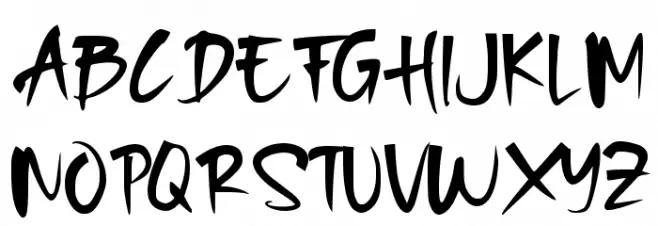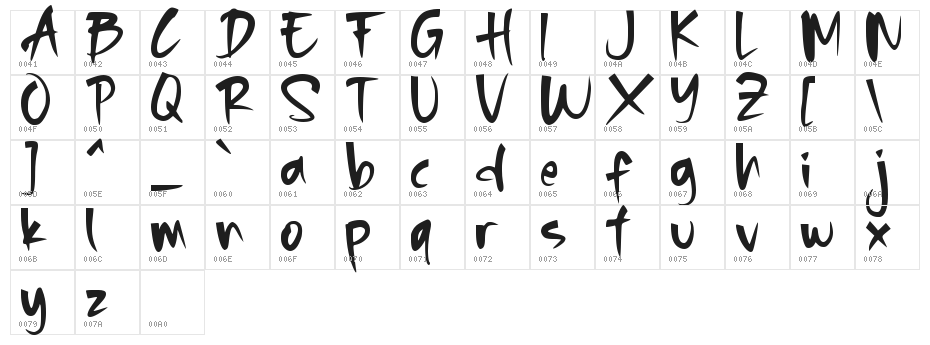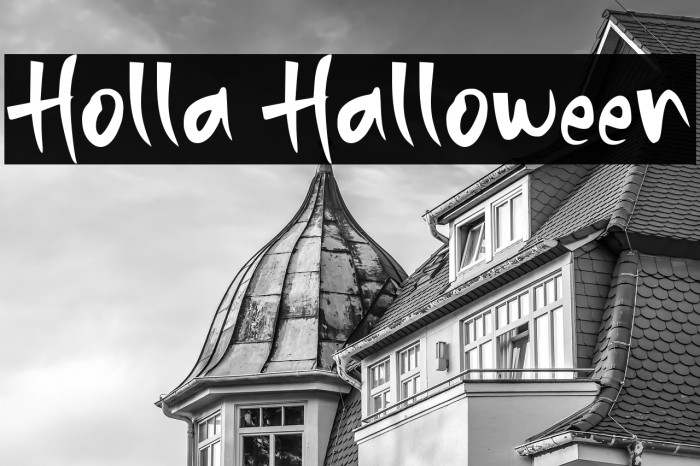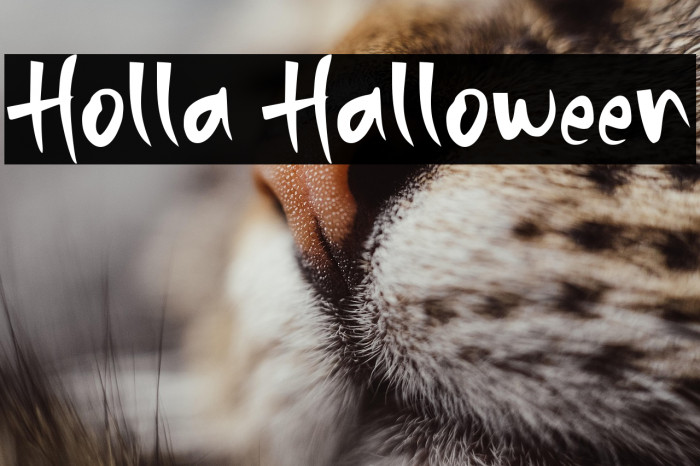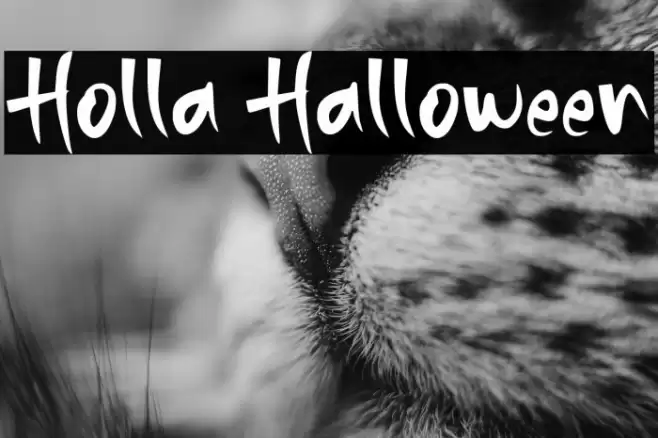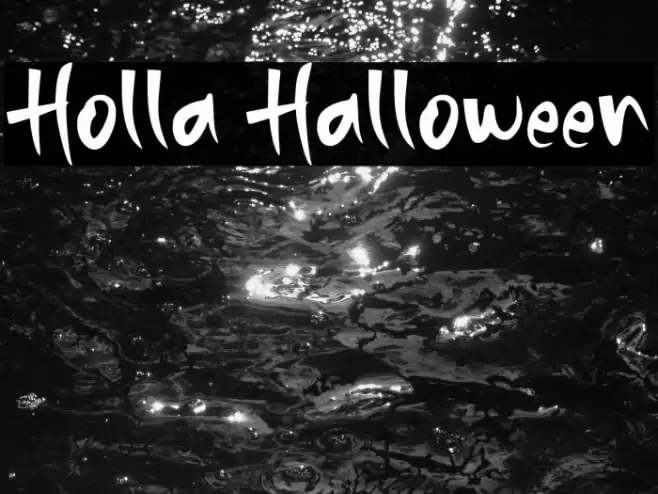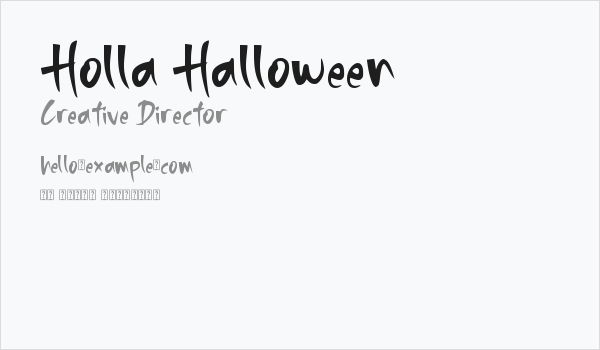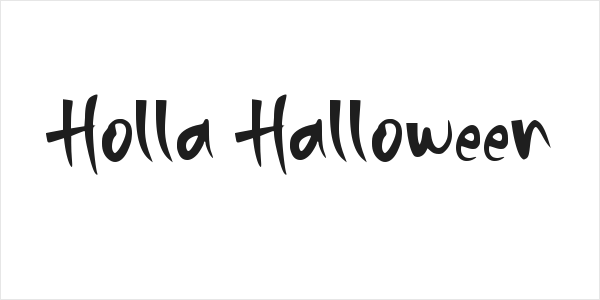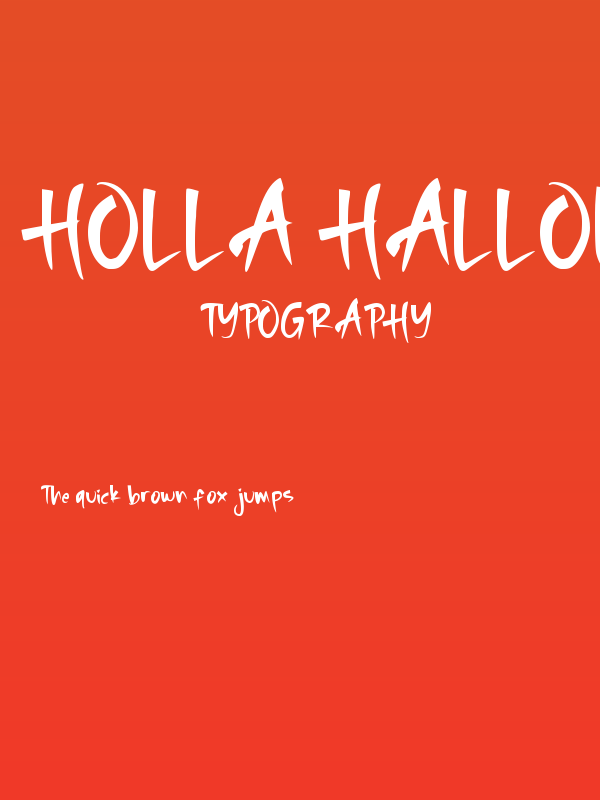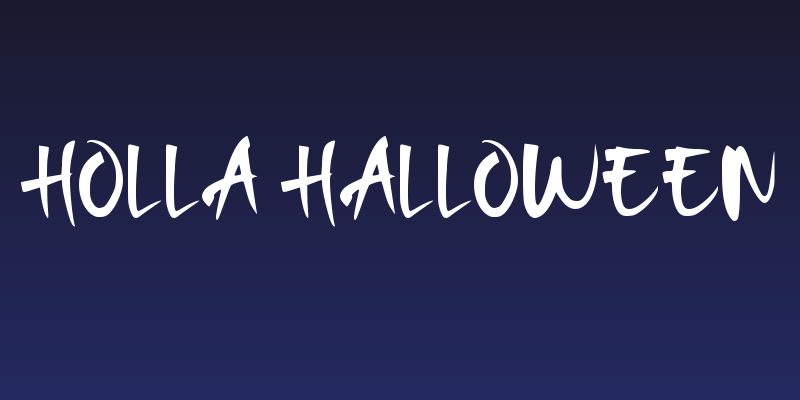
Holla Halloween Font
Holla Halloween Description
This font features a bold, expressive style with a playful and spooky vibe, perfect for Halloween-themed projects. The letters are crafted with a brush-like texture, giving them an energetic and dynamic appearance. The uppercase and lowercase letters are designed with exaggerated curves and sharp edges, creating a sense of movement and excitement. The font maintains a consistent weight throughout, ensuring readability while adding a touch of whimsy. Its unique character shapes make it ideal for capturing attention and conveying a festive, eerie atmosphere.